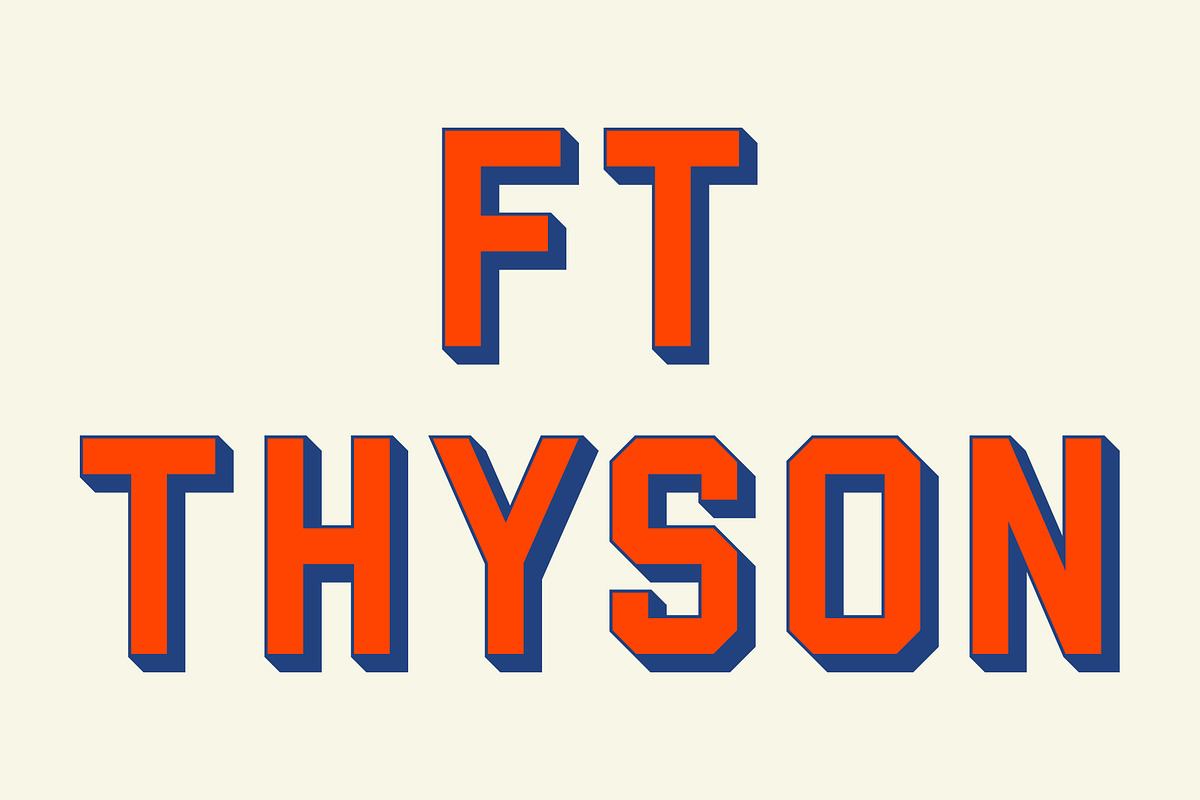
This dynamic font is perfect for athletic team branding, sports merchandise design, fitness center signage, competitive event promotions, sports broadcasting graphics, athletic apparel labeling, gymnasium materials, and high-energy marketing campaigns. Its powerful character makes it ideal for projects requiring strength, speed, and competitive athletic excellence.
FT Thyson Modern Sport Font is exciting because it embodies the intensity and precision of modern athletic competition with letterforms engineered for maximum visual impact and competitive edge. The font features bold geometric construction, dynamic angles, and aggressive styling that mirrors the power and determination of elite athletes. Its contemporary sports aesthetic ensures immediate recognition within athletic communities while conveying the cutting-edge technology and performance standards of modern sports.
The FT Thyson Modern Sport Font family typically includes multiple weights from regular to ultra-bold, along with condensed variations and athletic-themed decorative elements. Many versions feature stylistic alternates, sports symbols, and specialized glyphs that enhance the competitive atmosphere and professional sports presentation.
Whether you're developing professional sports brands, athletic equipment marketing, or competitive event campaigns, FT Thyson Modern Sport Font Free Download provides authentic athletic authority with contemporary performance. This typeface transforms ordinary communications into powerful statements that resonate with athletes, coaches, and sports enthusiasts who demand excellence and competitive advantage. Its distinctive character adds immediate credibility to sports-related projects while maintaining exceptional legibility across all applications, making it an essential resource for professionals working in FT Thyson Modern Sport Font Free Download and the dynamic world of competitive athletics.